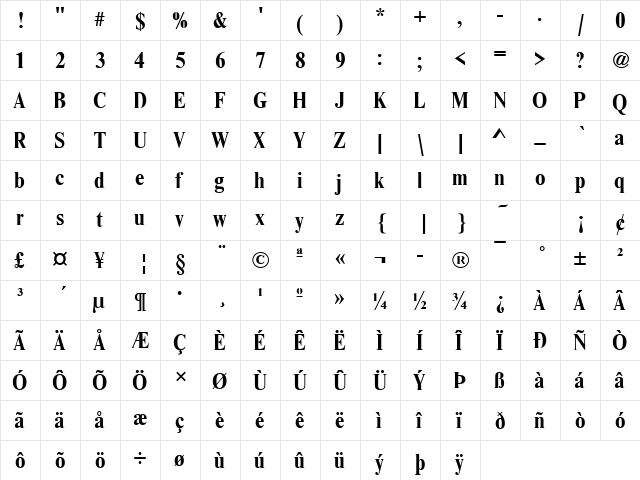
Nimbus Roman Becker No9TCon Bold
Design Context for Nimbus Roman Becker No9TCon Typeface
Nimbus Roman Becker No9TCon is a composed and adaptable typeface that performs quietly and consistently across a wide range of design contexts. Its bold stroke weight gives it real presence on the page.